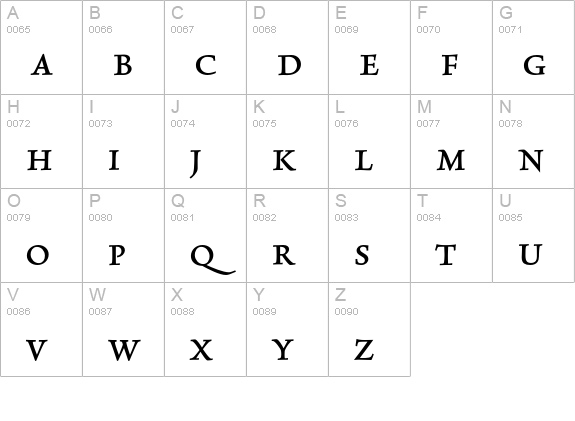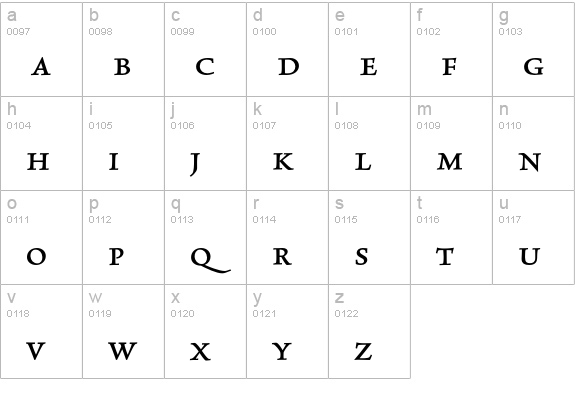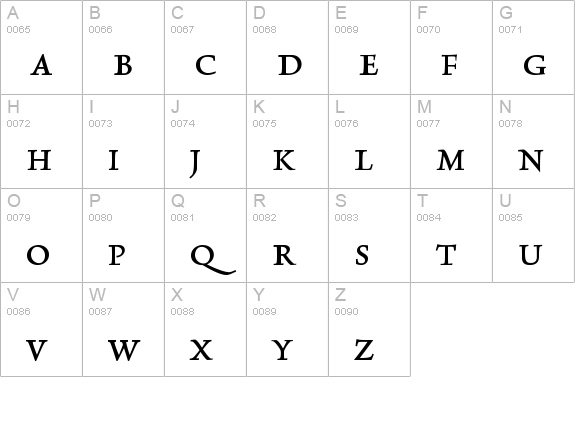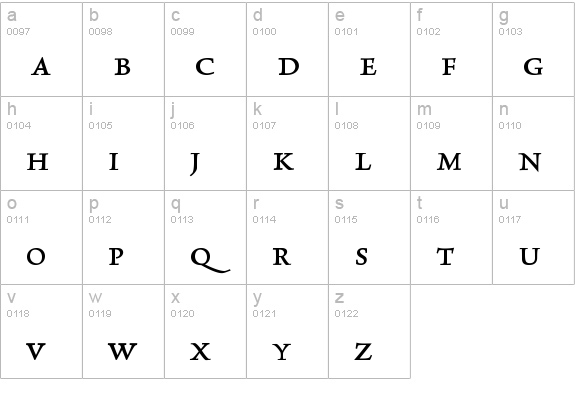
RialtoDF-CapsBold Font Details
RialtoDF-CapsBold is a captivating and bold font that exudes strength and sophistication. Its clean lines and sharp edges make it perfect for headlines, titles, and logos that demand attention. This font commands the eye with its commanding presence, making any design stand out from the crowd. What sets RialtoDF-CapsBold apart is not just its stunning aesthetics, but also its availability to everyone, completely free of charge. That's right, this incredible font can be freely downloaded at FontsMarket.com. This means that designers, creatives, and anyone in need of a powerful typographic solution can access RialtoDF-CapsBold without any cost or restrictions. With RialtoDF-CapsBold, creativity knows no bounds. Its versatility allows it to be used across a wide range of projects, from print materials to digital designs. Whether you're designing a magazine cover, a poster, a website, or even a corporate identity, this font will effortlessly elevate your work to new heights. The boldness of RialtoDF-CapsBold is balanced with its legibility, ensuring that your message is clear and impactful. Its captivating presence on the page or screen draws the reader's attention while ensuring effortless readability. It combines elegance with a modern flair, making it a timeless choice that will never go out of style. So why settle for generic and overused fonts when you can have the remarkable RialtoDF-CapsBold? Download it now for free at FontsMarket.com and unlock a world of possibilities for your design projects. Let this font be your secret weapon in creating bold and memorable experiences for your audience.